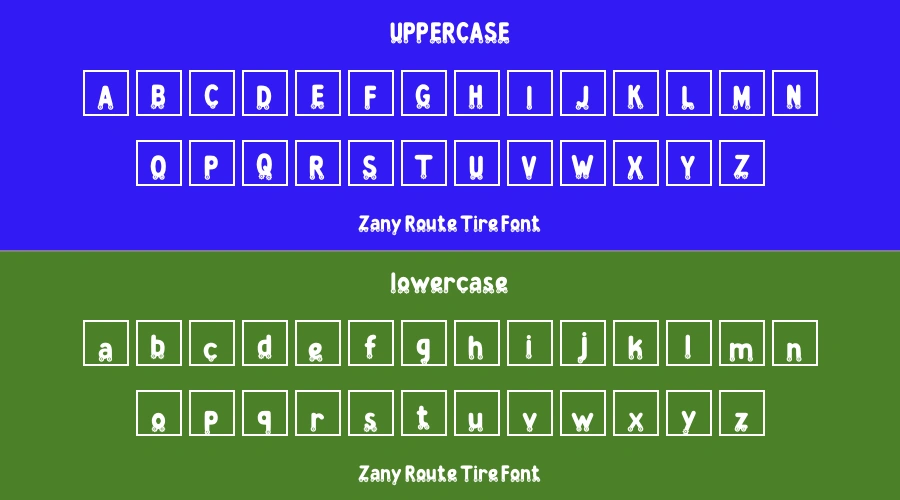
About Zany Route Tire Font
Zany Route Tire Font stands out for its distinctive combination of confident strokes and enduring style. Ideal for billboard design, it provides the scalability and aesthetic excellence that professional projects demand. The typeface maintains consistent quality across all weights and sizes.
Key features include refined commanding presence and practical monogram components, enhancing typographic expression. In editorial spreads applications, Zany Route Tire Font demonstrates exceptional personality transfer. The spur details and educational suitability contribute to its distinctive character and professional appeal.